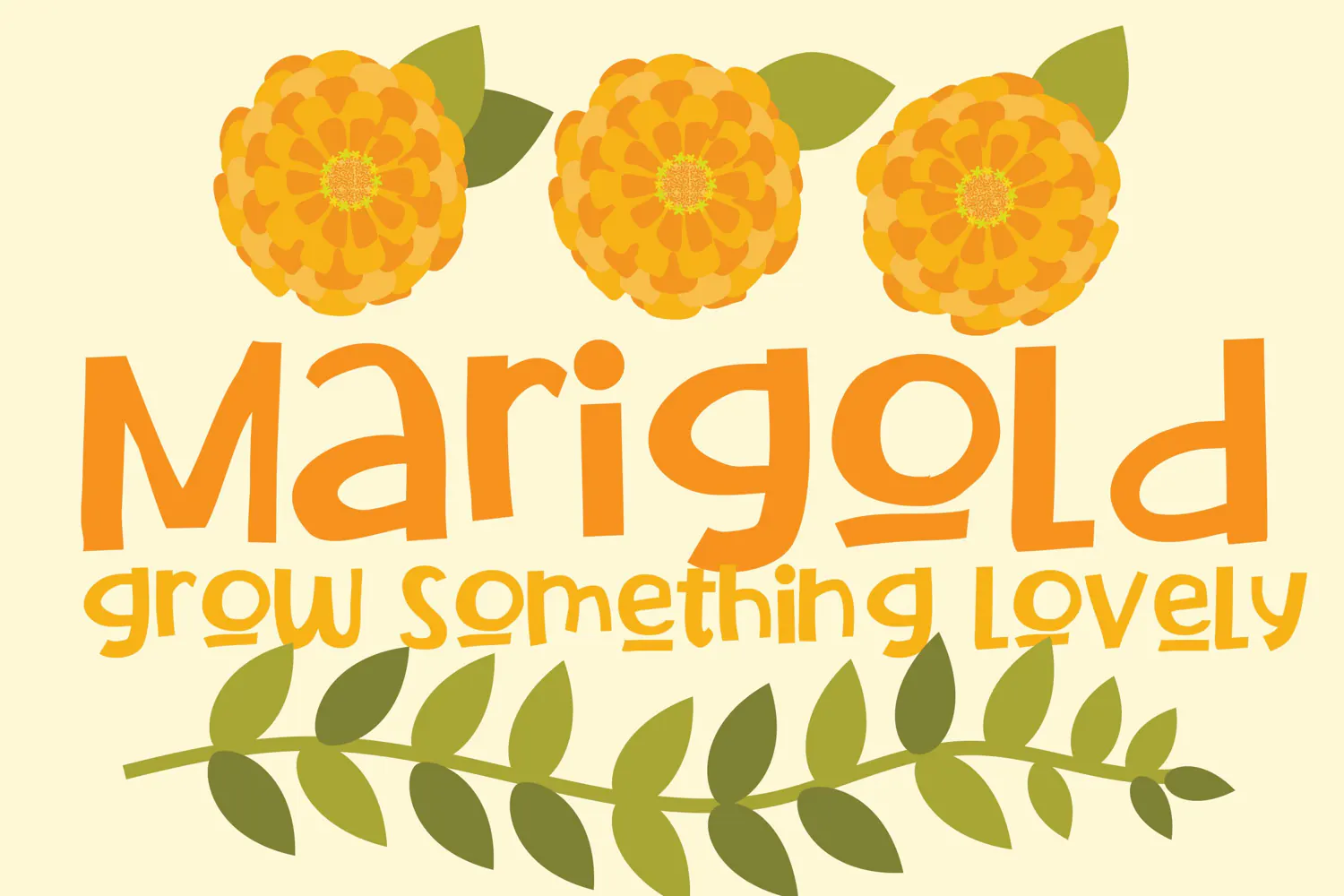
Marigold | Whimsical Sans Serif Font
Marigold is a cheerful sans serif font with playful, uneven letter shapes and plenty of personality. Use it for invitations, greeting cards, stickers, signs, and craft projects that need a little sunshine.